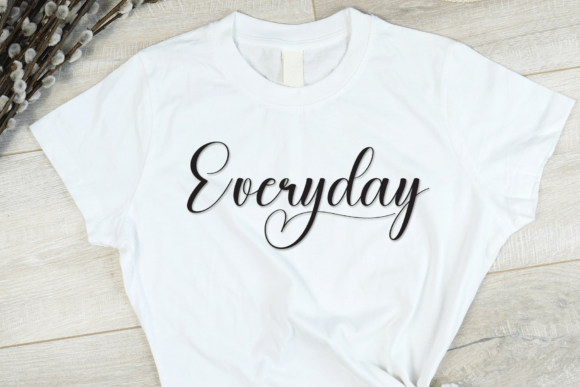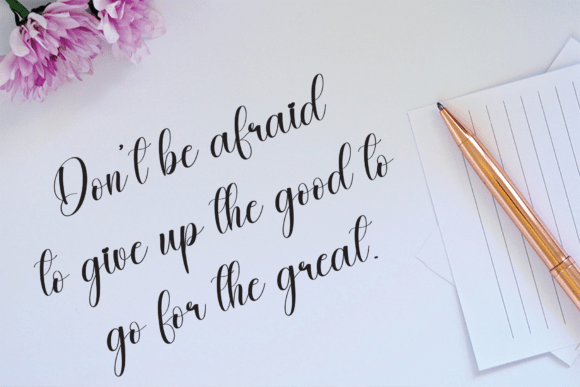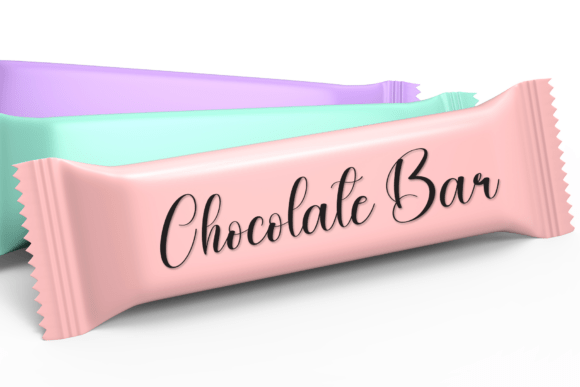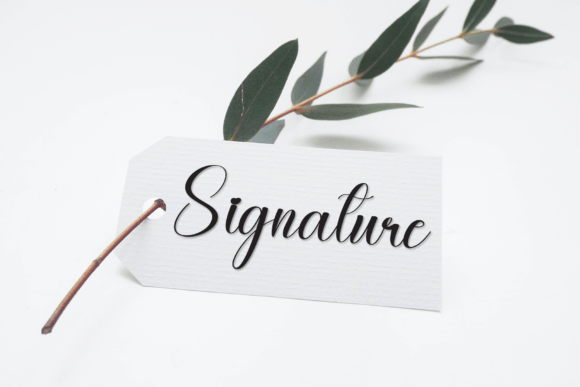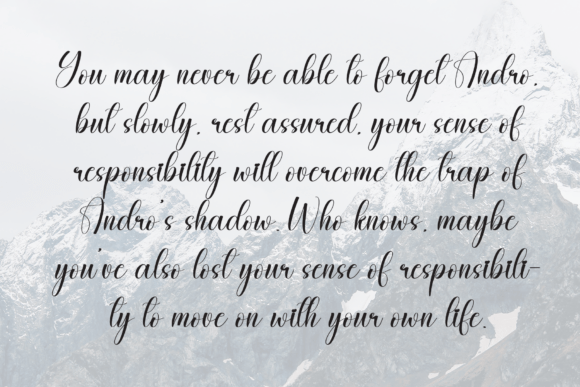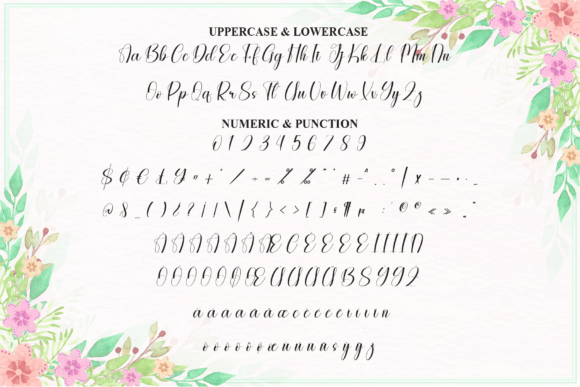
Discover the Enchanting Charisma of Angela Font: A Handwritten Display Font
In the realm of typography, few fonts manage to capture the essence of warmth and friendliness as effortlessly as Angela Font. This irresistible handwritten display font is the epitome of charm, radiating an engaging allure that makes it an optimal choice for a variety of creative projects. From mesmerizing wedding invitations to heartfelt cards, Angela Font brings a sprinkle of lighthearted joy to any design venture.
The Bewitching Attraction of Angela Font
What sets Angela Font apart from other typefaces is its fun and delightful qualities. The bewitching attraction of this font amplifies any design project with a unique flair, making it a go-to choice for designers and crafters seeking to add a touch of whimsy to their work. Whether you’re creating a wedding invitation, a greeting card, or a social media graphic, Angela Font injects a dose of personality and charm into your design.
Achieving a Harmonious Balance between Style and Cheer
One of the standout features of Angela Font is its ability to achieve a harmonious balance between style and cheer. This font etches a visual narrative that resonates on an emotional level, making it perfect for designs that require a personal touch. The elegant, flowing lines of Angela Font create a sense of movement and energy, while its playful, handwritten quality adds a touch of warmth and approachability.
Celebrating the Unique Flair of Angela Font
Angela Font’s unique flair is a result of its carefully crafted design. The font’s creator has poured their heart and soul into crafting a typeface that is both stylish and charming. The result is a font that is not only visually stunning but also incredibly versatile. Whether you’re designing a wedding invitation, a children’s book, or a social media graphic, Angela Font is the perfect choice.
Bringing Life to Design Concepts with Angela Font
Savor the captivating charisma of Angela Font and marvel at the way it creatively breathes life into any design concept. This font has the power to transform even the most mundane design project into a visually stunning masterpiece. With Angela Font, you can:
- Create mesmerizing wedding invitations that set the tone for a magical day
- Design heartfelt cards that speak directly to the recipient’s heart
- Add a touch of whimsy to your social media graphics and make them stand out
- Develop a cohesive brand identity that exudes warmth and friendliness
Why Designers and Crafters Love Angela Font
Designers and crafters love Angela Font for its unique combination of style, charm, and versatility. Here are just a few reasons why:
- Easy to read: Despite its playful, handwritten quality, Angela Font is incredibly easy to read, making it perfect for designs that require a personal touch
- Highly versatile: Angela Font can be used for a wide range of design projects, from wedding invitations to social media graphics
- Customizable: With Angela Font, you can experiment with different colors, textures, and styles to create a unique look that reflects your brand or personal style
In conclusion, Angela Font is a truly enchanting handwritten display font that is sure to captivate designers and crafters alike. Its unique blend of style, charm, and versatility makes it the perfect choice for a wide range of creative projects. Whether you’re seeking to add a touch of whimsy to your design or create a cohesive brand identity, Angela Font is the perfect choice. So why wait? Discover the enchanting charisma of Angela Font today and breathe new life into your design concepts!